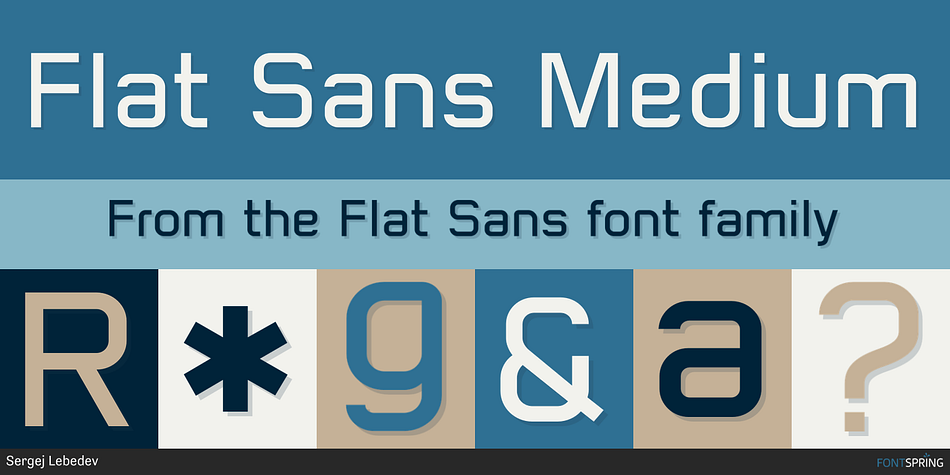
Flat Sans Medium
Designed by Sergej Lebedev, Flat Sans is a sans serif font family. This typeface has fourteen styles and was published by Sergej Lebedev.
Flat Sans is a modern, contemporary square sans font family with 14 fonts. Designed by the German type designer Sergej Lebedev, Flat Sans conveys an innovative and dynamic design language with a high recognition value. Clear, modern and constructed letter forms give the font family an innovative design style. The perfectly developed Flat Sans is suitable for use in corporate identity, corporate design, editorial, product design and advertising. Flat Sans can be used in a targeted manner, particularly in all design projects that require a technical design language.